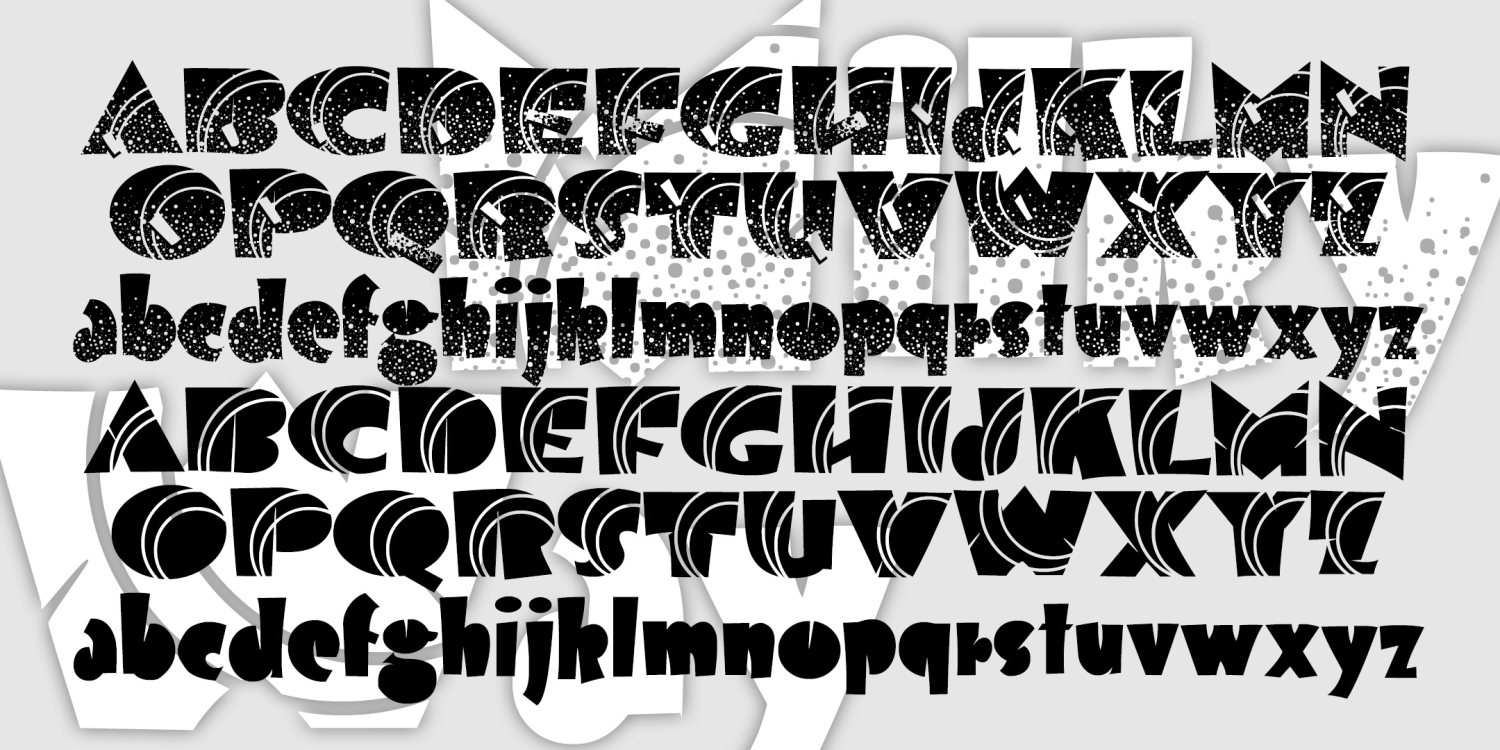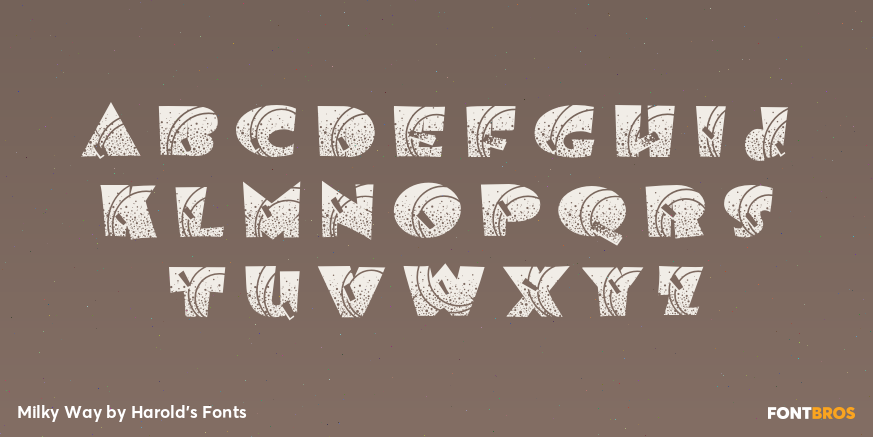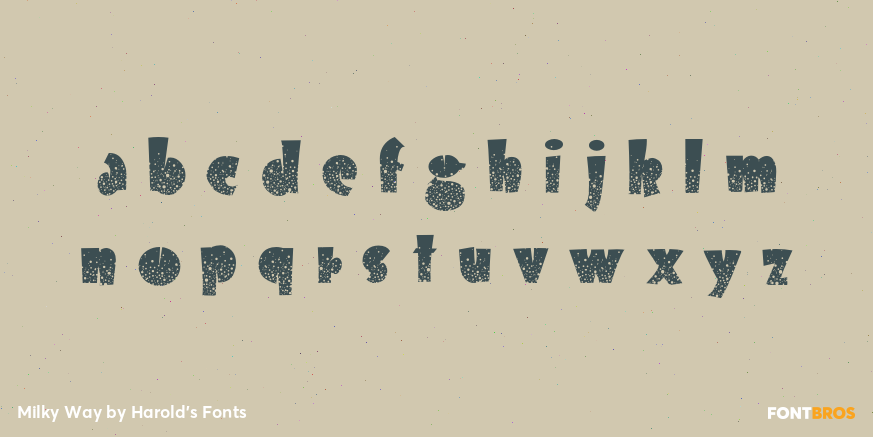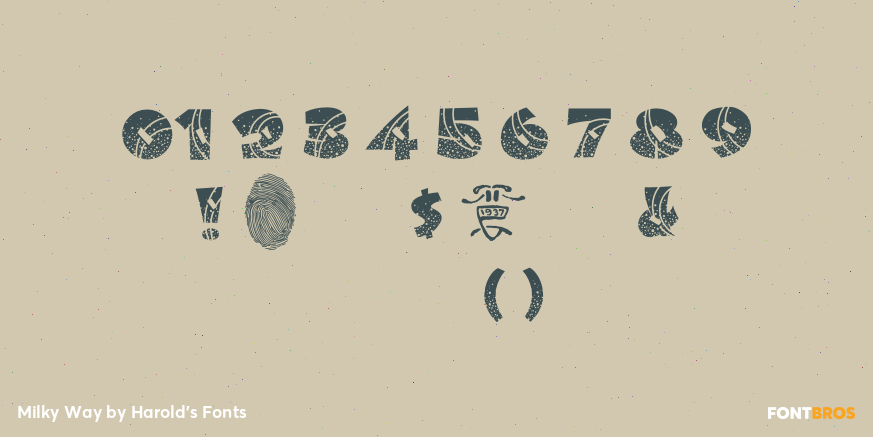
Milky Way
Font Family by Harold's Fonts
MILKY WAY was inspired by an Art Deco alphabet seen in late 1930s Speedball lettering books by Ross F. George. A "future past" look, like the 1939 Worlds Fair and Tomorrowland. Originally, George directed that the distinctive white dots were to be made by spattering white ink with a toothbrush. The degree of detail in the Regular version of this font means it should be used fairly big. I've added a second font without the stars but retaining the rings.